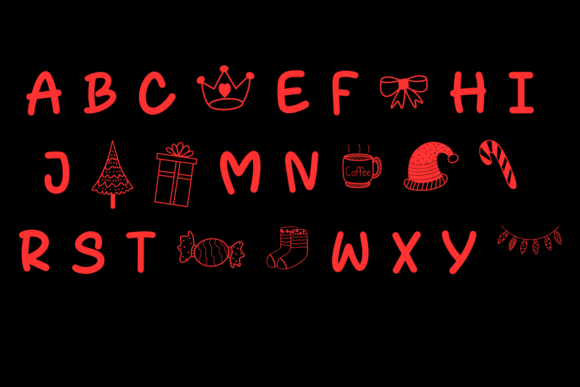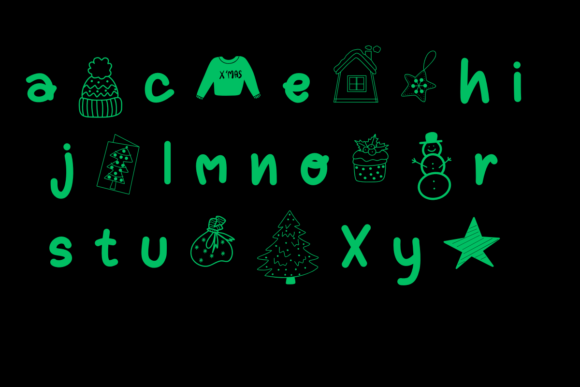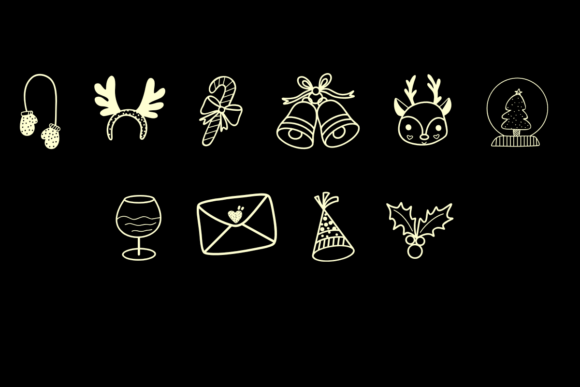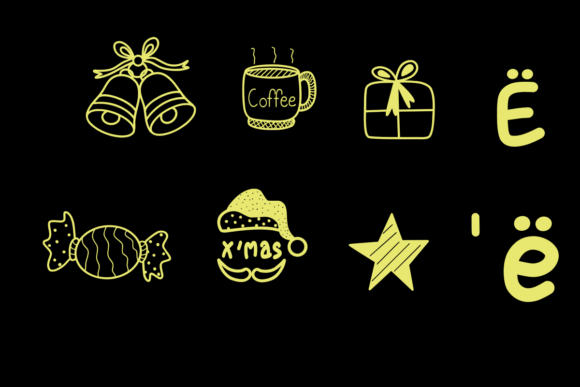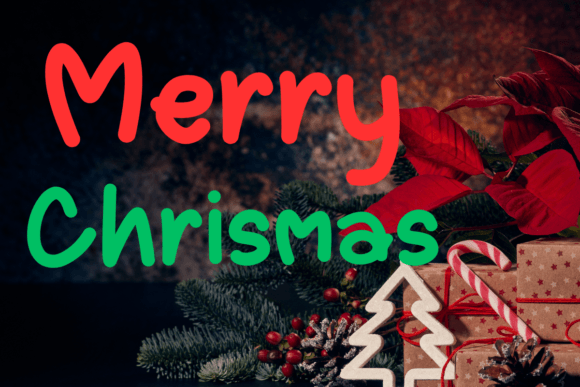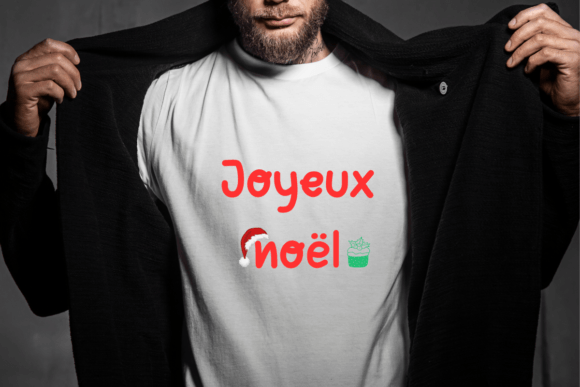
Introducing Happy Noel Font: A Cute Handwritten Dingbats Font
Are you looking for a font that can add a touch of magic to your designs? Look no further than Happy Noel Font, a cute handwritten dingbats font that is sure to captivate your audience. With its incredibly distinct and timeless style, Happy Noel Font is the perfect choice for designers and crafters who want to create spectacular designs.
What is Happy Noel Font?
Happy Noel Font is a unique and charming handwritten dingbats font that is designed to bring a smile to your face. Its distinct style is reminiscent of traditional holiday decorations, making it perfect for Christmas, New Year’s Eve, and other festive occasions. The font is made up of a collection of adorable illustrations, including snowflakes, stars, and other seasonal icons, that can be used to add a personal touch to your designs.
Key Features of Happy Noel Font
- Cute and playful design: Happy Noel Font features an incredibly cute and playful design that is sure to delight your audience.
- Handwritten dingbats: The font is made up of handwritten dingbats that give it a personal and unique touch.
- Distinct and timeless style: Happy Noel Font has a distinct and timeless style that will make your designs stand out from the crowd.
- Perfect for festive occasions: The font is perfect for Christmas, New Year’s Eve, and other festive occasions.
- Easily customizable: Happy Noel Font is easily customizable, making it easy to use in a variety of design projects.
Why Use Happy Noel Font?
There are many reasons why you should use Happy Noel Font in your designs. Here are a few:
- Add a personal touch: Happy Noel Font allows you to add a personal touch to your designs, making them more unique and engaging.
- Stand out from the crowd: The font’s distinct style will help your designs stand out from the crowd and grab the attention of your audience.
- Perfect for crafters and designers: Happy Noel Font is perfect for crafters and designers who want to create spectacular designs for festive occasions.
- Easily paired with other fonts: The font can be easily paired with other fonts to create a unique and visually appealing design.
Design Ideas Using Happy Noel Font
Here are a few design ideas that you can use Happy Noel Font for:
- Holiday cards and invitations: Use Happy Noel Font to create festive holiday cards and invitations that will delight your friends and family.
- Social media graphics: Use the font to create social media graphics that will grab the attention of your audience and add a personal touch to your posts.
- Digital papers and planners: Happy Noel Font is perfect for creating digital papers and planners that are both functional and visually appealing.
- Craft projects: Use the font to add a personal touch to your craft projects, such as scrapbooking, card making, and other paper crafts.
Tips for Using Happy Noel Font
Here are a few tips for using Happy Noel Font:
- Experiment with different colors: Happy Noel Font looks great in a variety of colors, so don’t be afraid to experiment and find the perfect color scheme for your design.
- Pair with other fonts: The font can be easily paired with other fonts to create a unique and visually appealing design.
- Use it sparingly: Happy Noel Font is a bold and playful font, so use it sparingly to add a personal touch to your designs.
| Font Name | Happy Noel Font |
| Author | Petal Pixels |
In conclusion, Happy Noel Font is a cute handwritten dingbats font that is perfect for designers and crafters who want to create spectacular designs for festive occasions. With its incredibly distinct and timeless style, Happy Noel Font is sure to captivate your audience and add a personal touch to your designs. So why wait? Download Happy Noel Font today and start creating magical designs that will delight your audience!